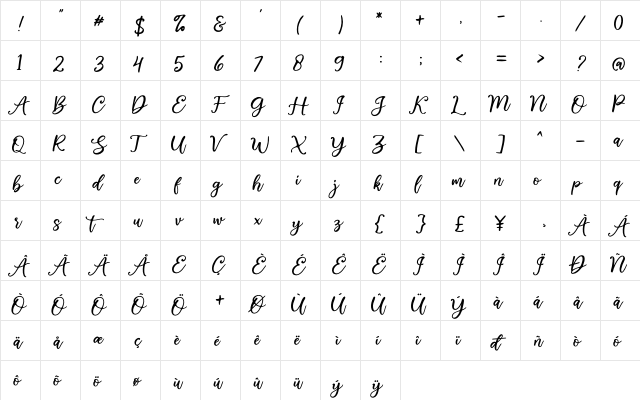
Humaira Regular
Design Context for Humaira Typeface
Humaira is a composed and adaptable typeface that performs quietly and consistently across a wide range of design contexts.